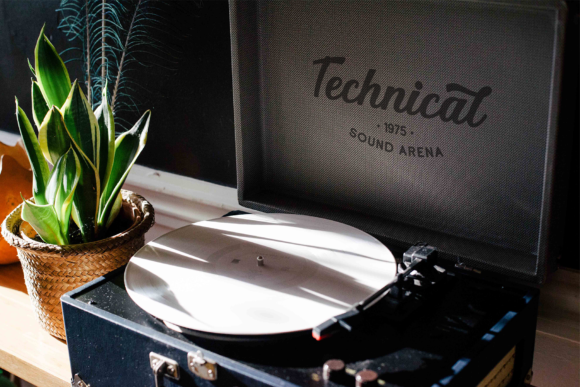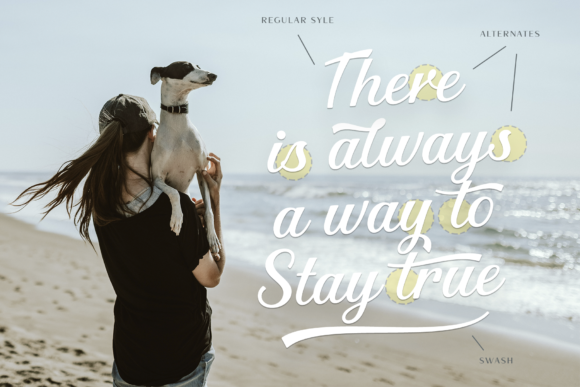
Hughes Font
db-ku.com - Script & Handwritten -- Hughes is a classic script font. With it, you can create beautiful logos, labels, templates, signs, highlight text, use it for outdoor advertising, branding, and much more.